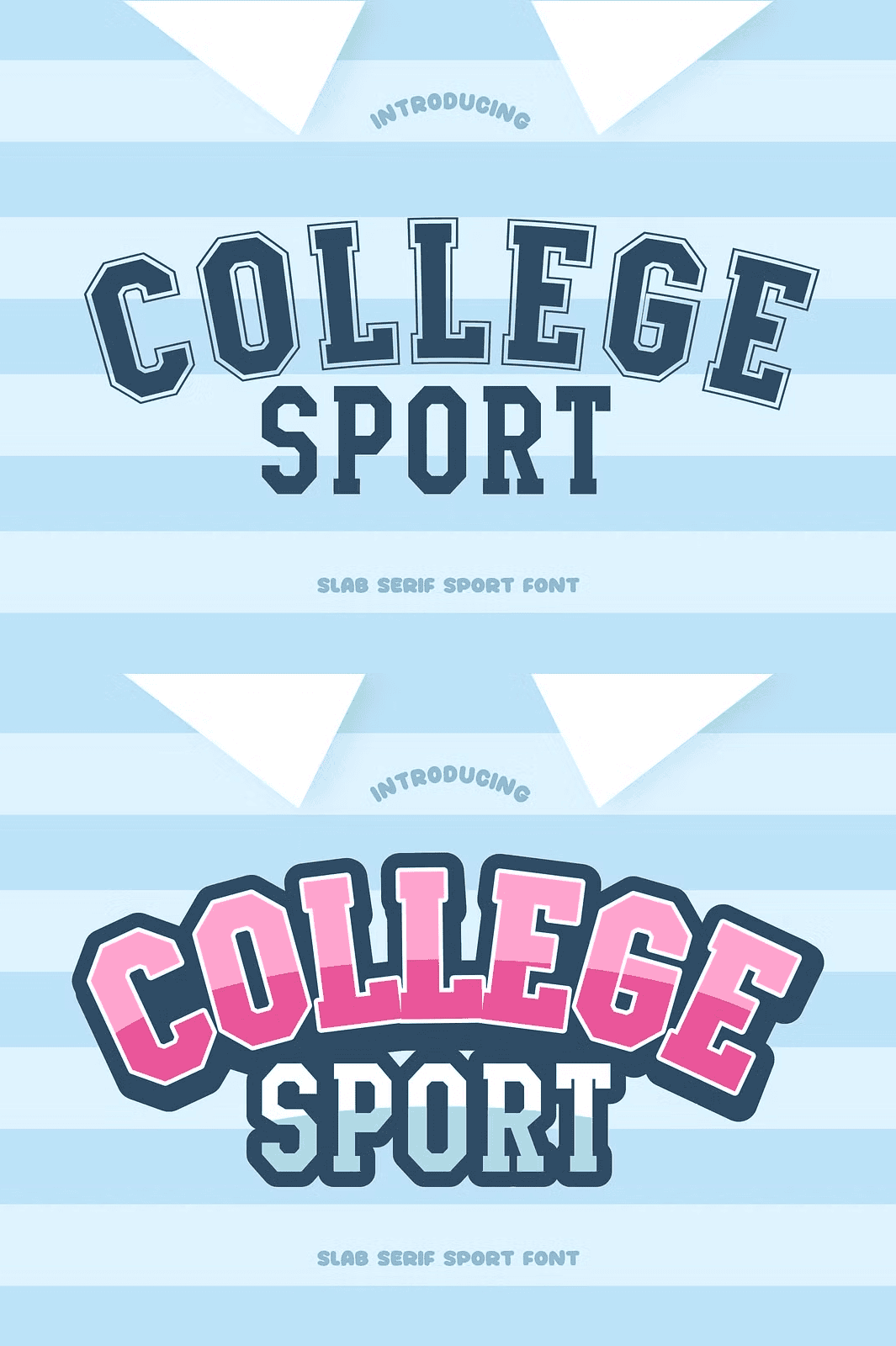
Power Up Your Designs with a Bold, Playful Collegiate Vibe
Command attention and spark school pride with **College Sport**, a dynamic varsity-style display font meticulously crafted for sports, student life, and all things collegiate. This isn’t just a font — it’s a cultural statement. Whether you’re branding a university team, designing gear for Sports Day, or creating promotional materials for a campus festival, College Sport delivers an instant burst of energy and authenticity.
Every letter is built with the raw spirit of student athletics — bold, unapologetic, and alive. From the sharp serifs to the exaggerated letterforms, this typeface radiates confidence, movement, and passion. It’s engineered to stand out on uniforms, banners, hats, and posters, ensuring your message isn’t just seen — it’s felt.
Supercharge Your Creativity with Advanced Typographic Features
College Sport goes beyond basic lettering — it’s designed with elite functionality for professional designers and passionate creators:
- Stylistic Alternates: Swap out standard letters for customized versions to add uniqueness and visual flair.
- Ligatures: Achieve smooth, professional-looking text with hand-tuned character combinations that prevent awkward spacing.
- Small Caps & Uppercase Variants: Match your design needs — whether you’re building a team name or a title.
Perfect for Every College & Sports-Themed Project
Put College Sport to work across an endless range of creative applications:
- Design **team jerseys and sports uniforms** with authentic, game-day appeal.
- Create **eye-catching hats, sweatbands, and accessories** for student athletes.
- Build **posters and banners** for Sports Day, homecoming, intramural events, and rivalries.
- Develop **branded merchandise** for alumni, student clubs, and college fan gear.
- Enhance **digital content** like YouTube thumbnails, Instagram posts, and social media campaigns.
- Power **college event websites, newsletters, and promotional PDFs** with an energetic, youthful voice.
This font doesn’t just support your vision — it drives it. It speaks the language of tradition, rivalry, and school pride with unmatched clarity.